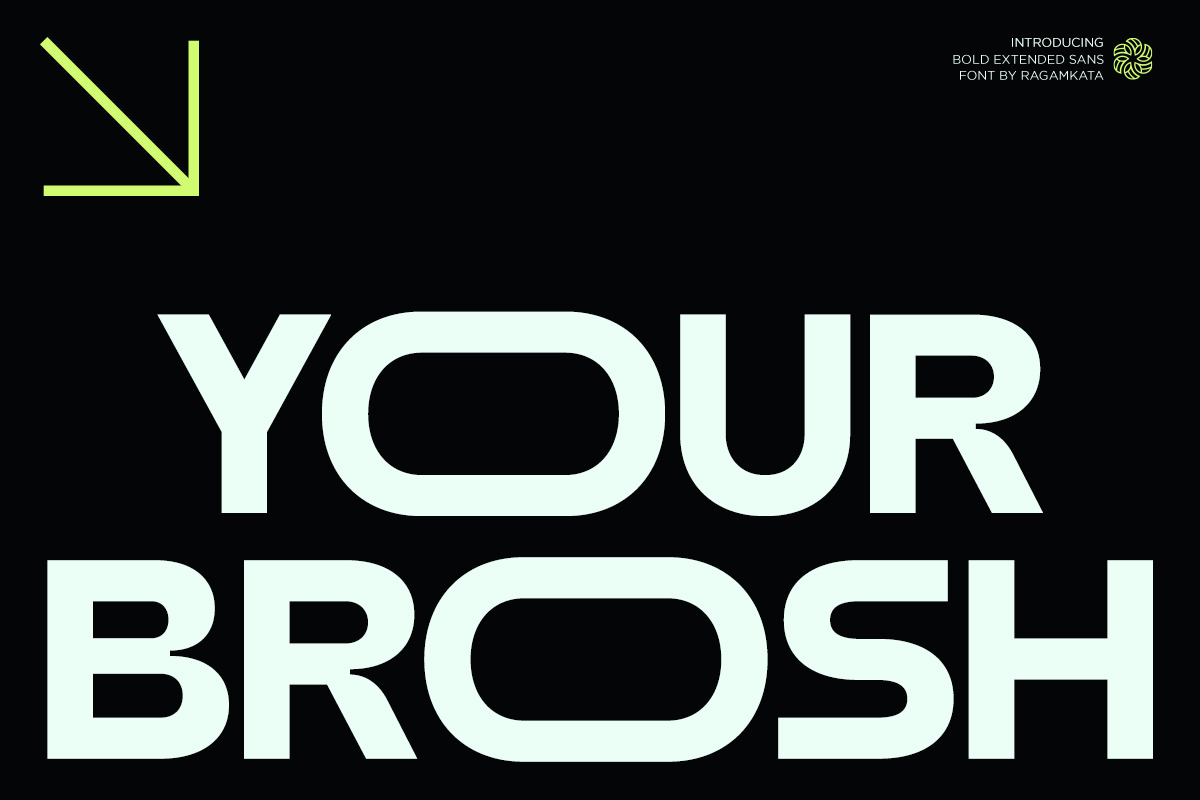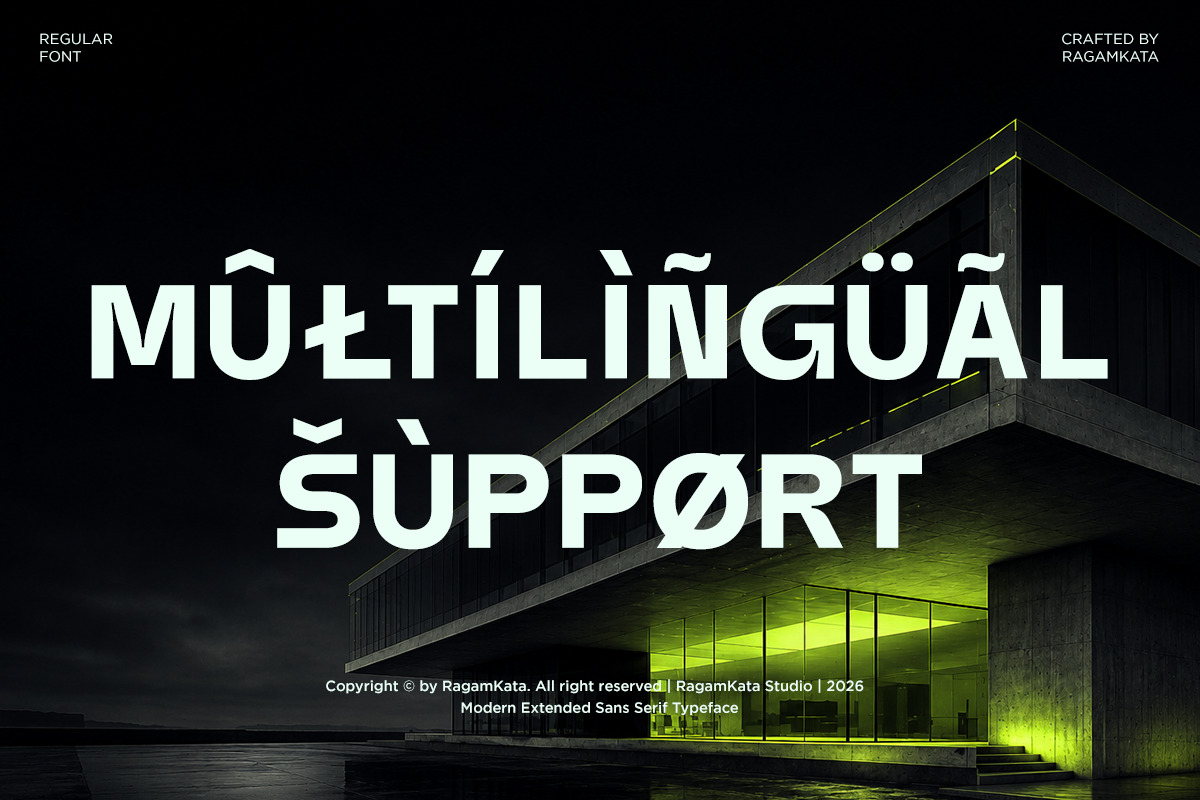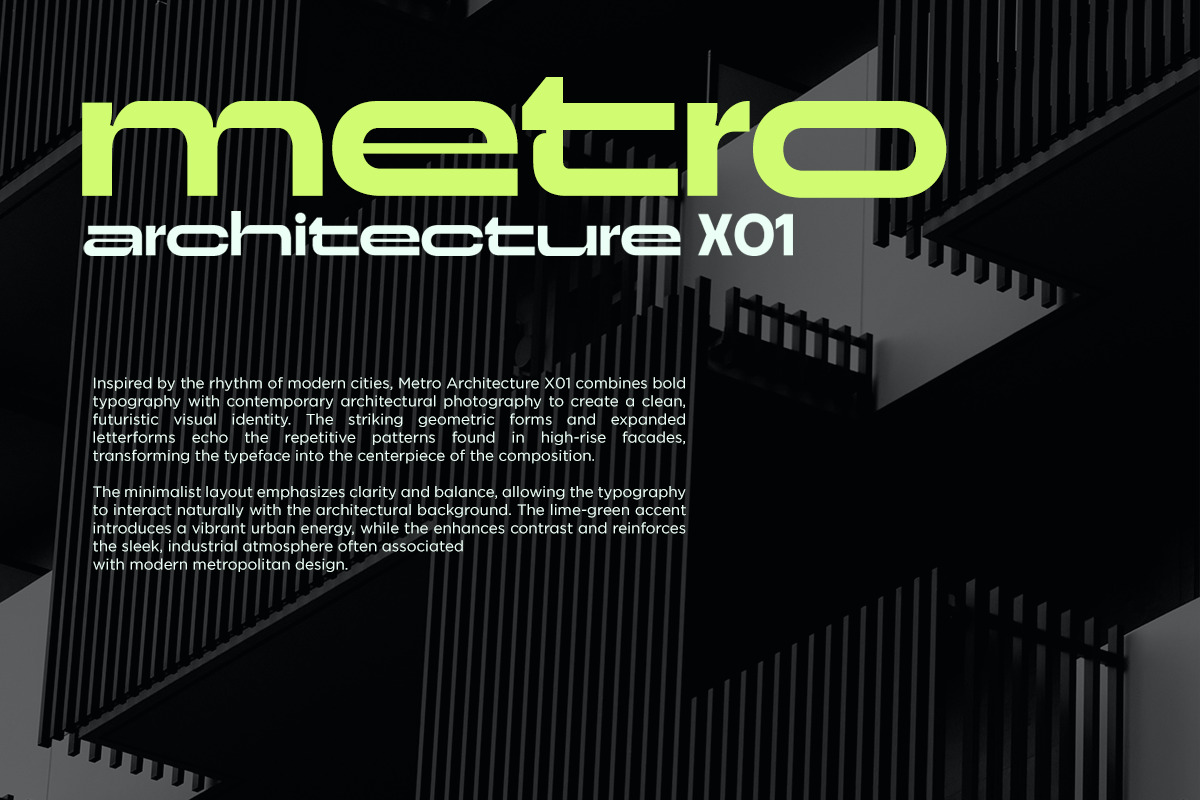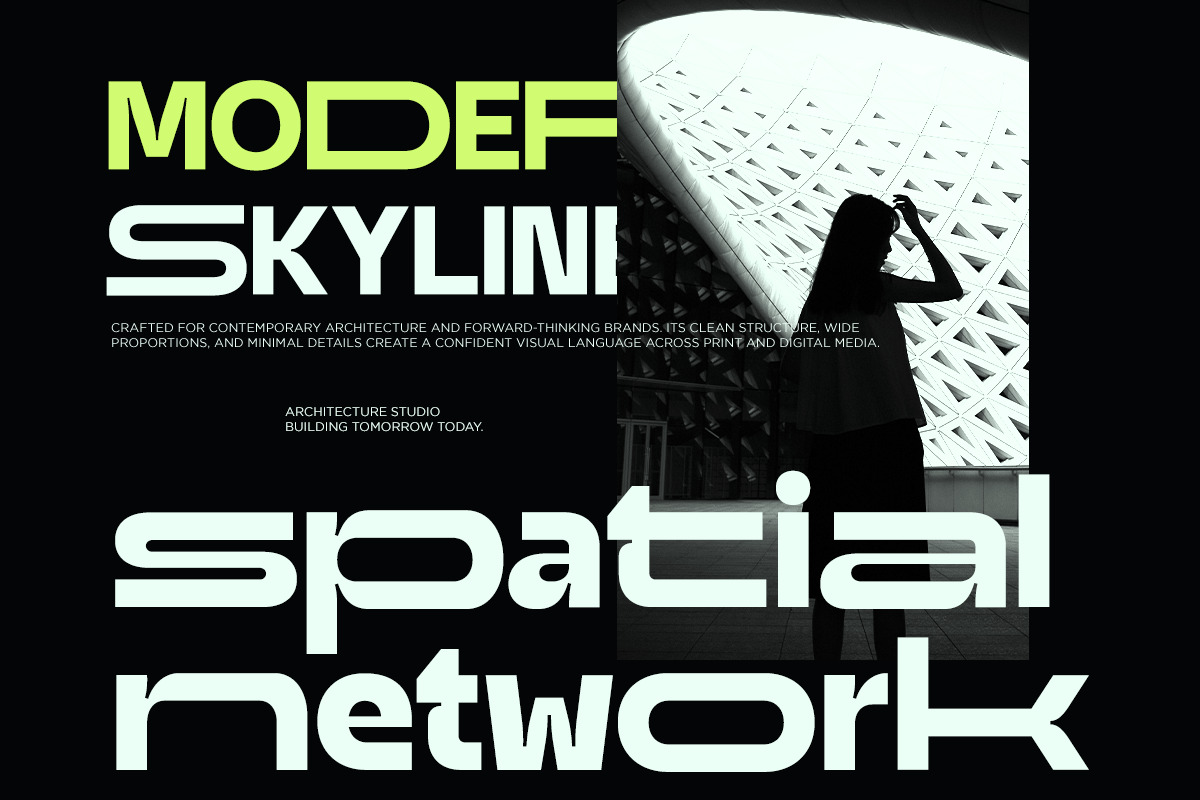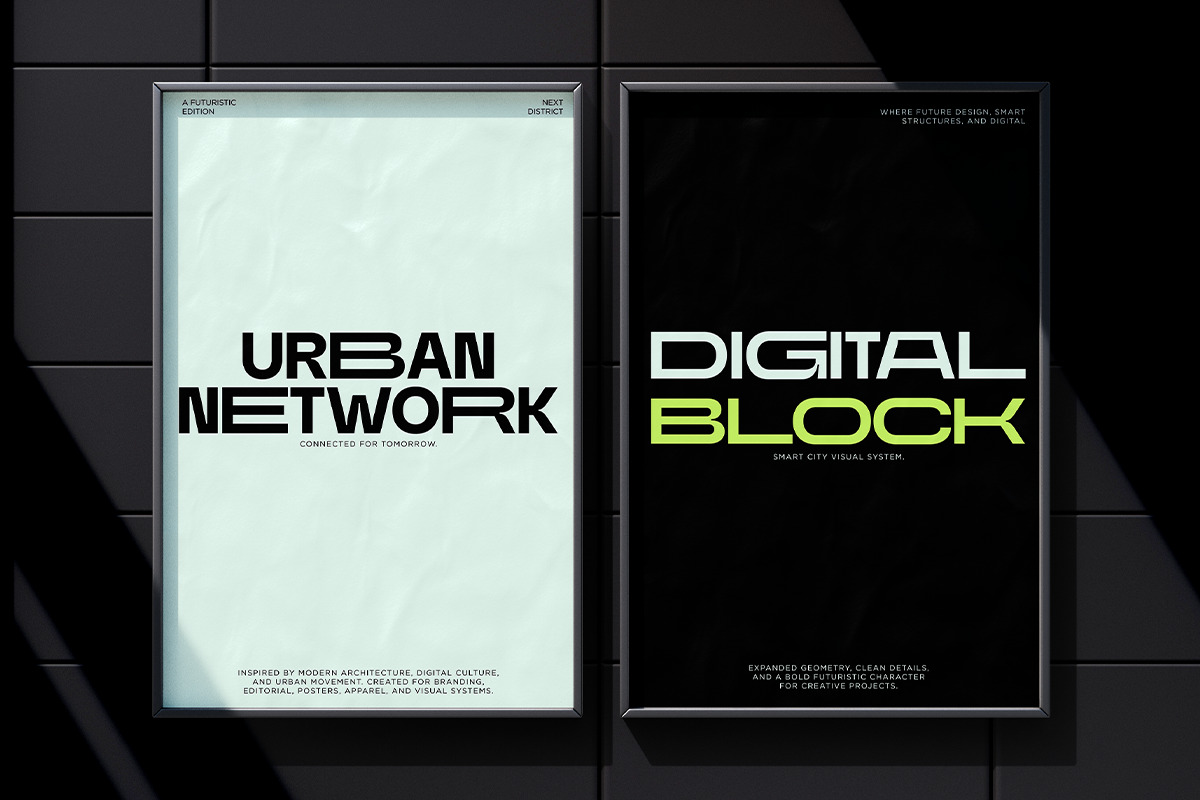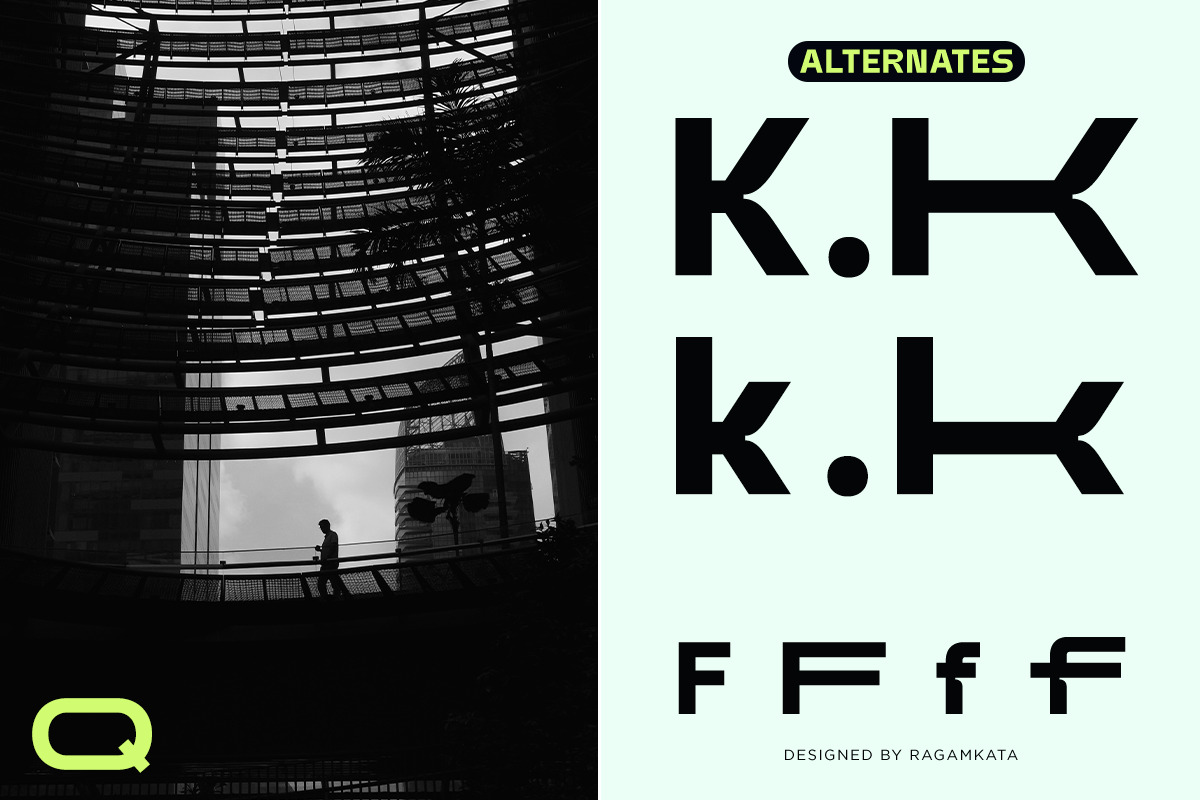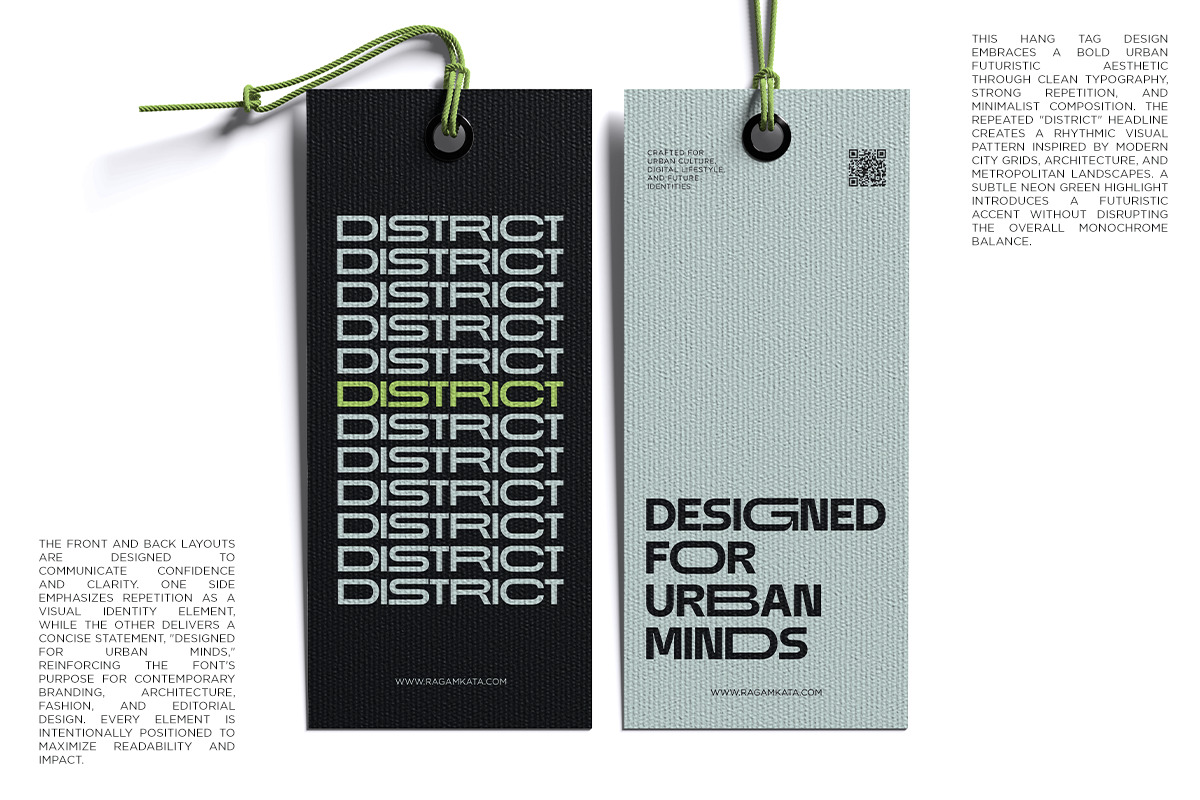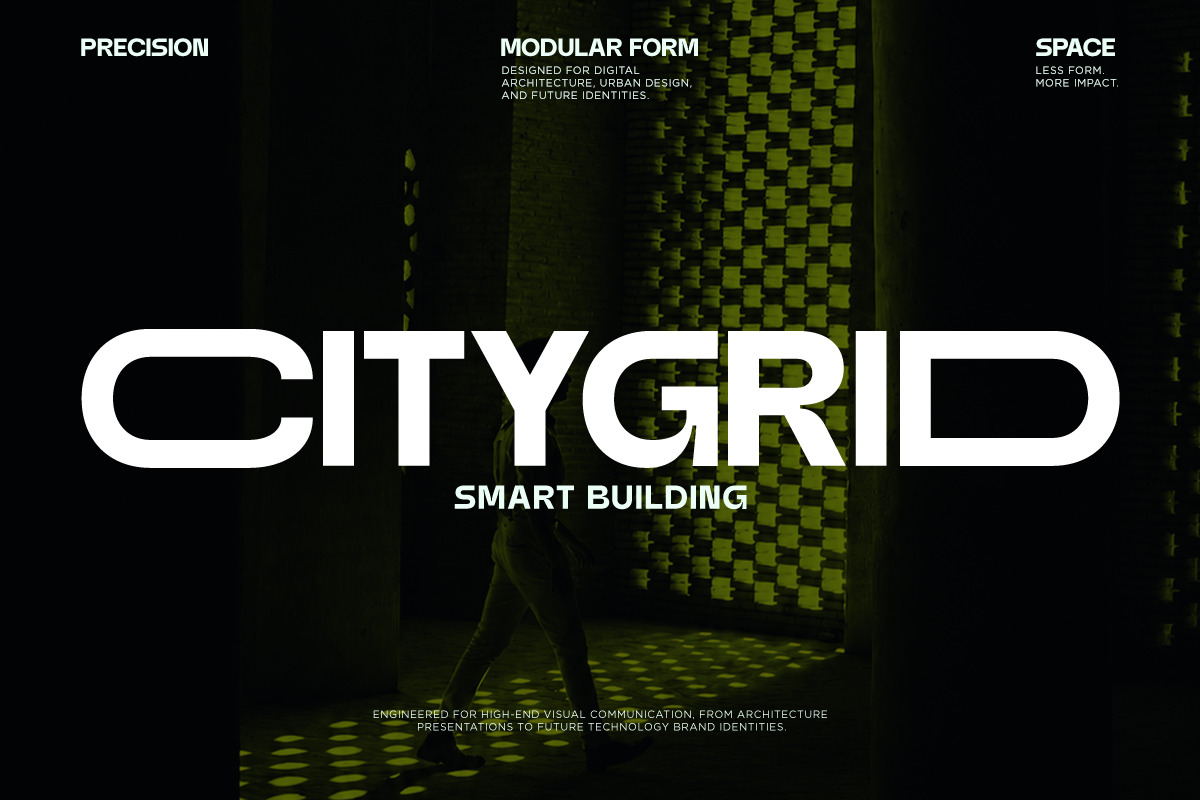
Your Brosh is a bold expanded sans serif font crafted for designers who want to create strong, modern, and memorable visual identities. Inspired by..contemporary architecture, urban landscapes, and futuristic design, it combines wide geometric letterforms with clean construction to deliver a confident and professional appearance.
Designed for maximum visual impact, Your Brosh performs beautifully across branding, logos, editorial layouts, posters, packaging, advertising, digital interfaces, and architectural presentations. Its bold structure and modern proportions ensure excellent readability while adding a distinctive futuristic character to every project.
Your Brosh offers the versatility needed for creative professionals. Whether you're building a technology startup, developing a premium brand identity, designing fashion campaigns, or creating architectural publications, this typeface brings clarity, strength, and contemporary sophistication to your work.
Regular and Italic
Stylistic Alternates
Uppercase and Lowercase
Number, Symbol, and Punctuation